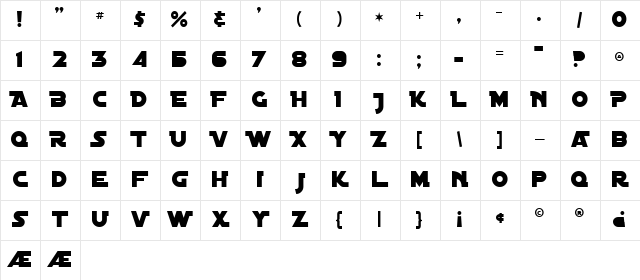
Distant Galaxy Alternate Regular Free Font
Distant Galaxy Alternate Regular
Distant Galaxy Alternate Family
Complete Distant Galaxy Alternate Regular glyph index. Displaying only characters natively supported by Distant Galaxy Alternate Regular font.
Design Context for Distant Galaxy Alternate
Distant Galaxy Alternate is a composed and adaptable typeface that performs quietly and consistently across a wide range of design contexts.
Pro Tip: Use Distant Galaxy Alternate in both headline and body roles to test its range before committing to a single application.